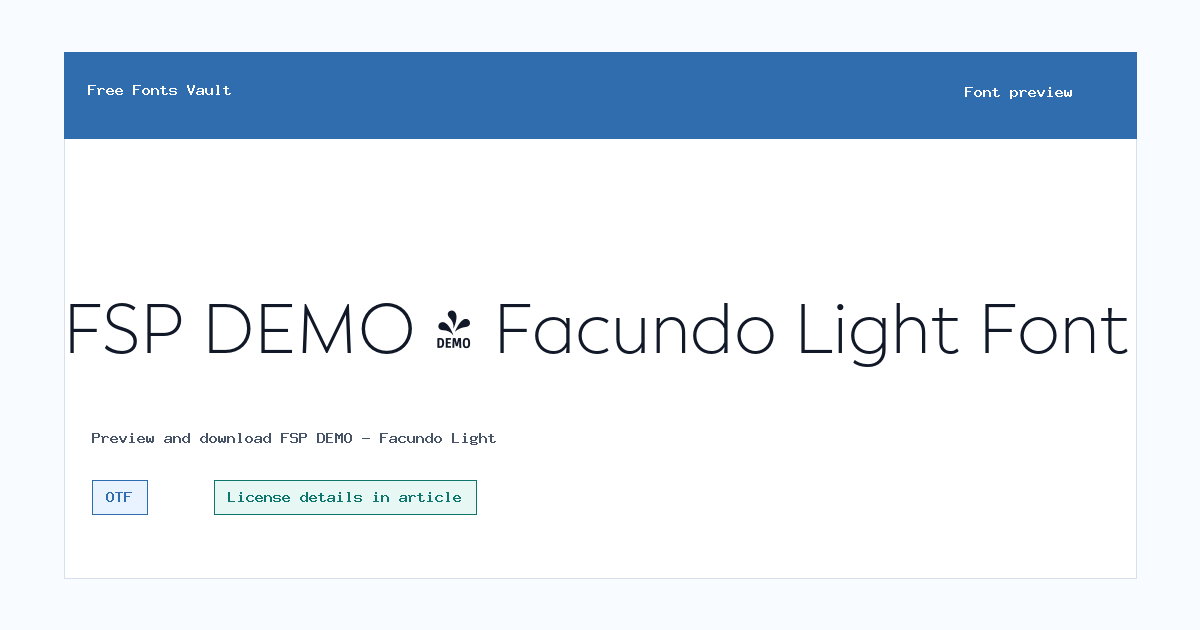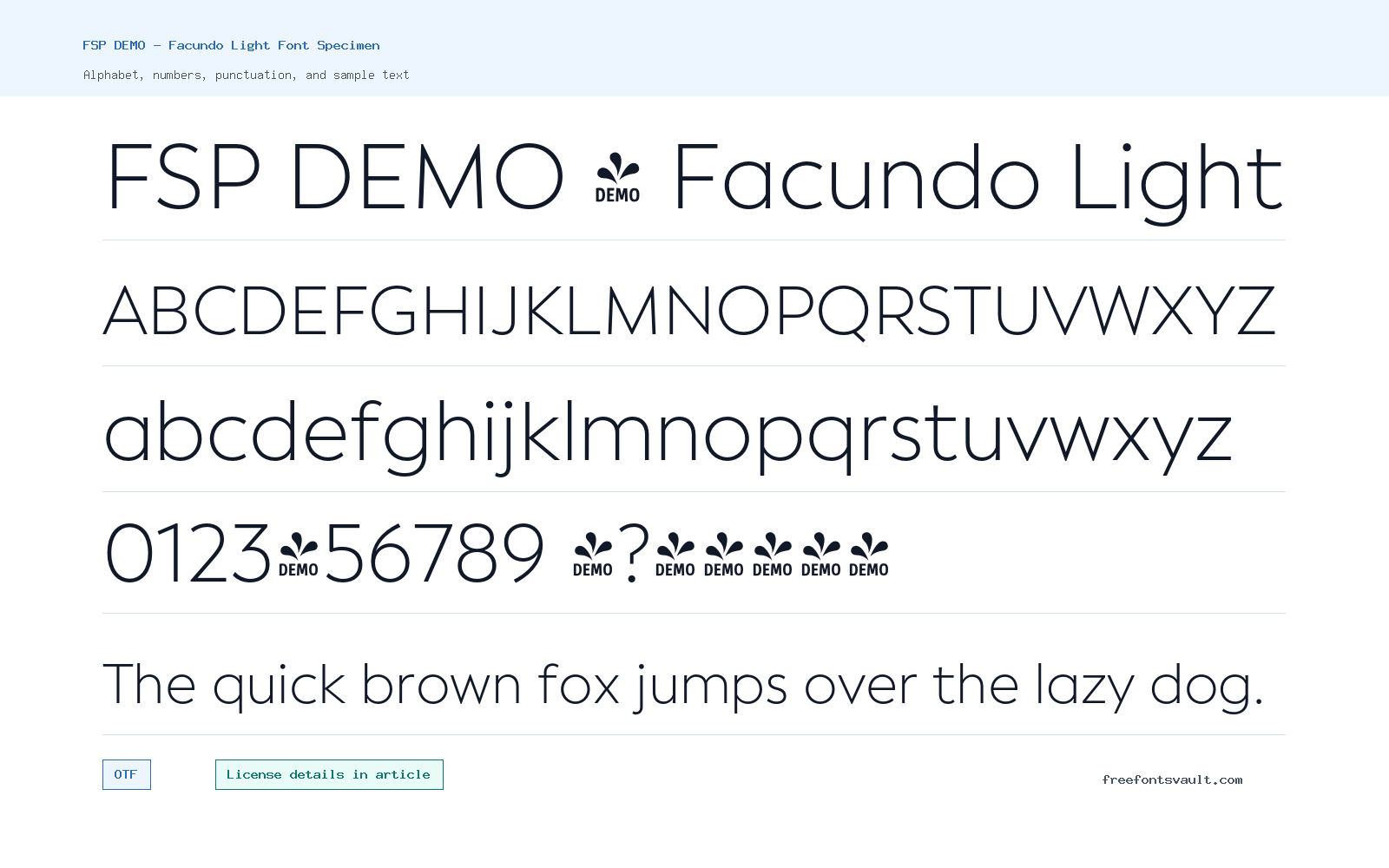
FSP DEMO - Facundo Light
- Designer Daniel Hernandez & Paula Nazal
- Foundry Daniel Hernandez & Paula Nazal
FSP DEMO – Facundo Light font.
Facundo Light is a clean 300-weight OTF style connected with Daniel Hernandez, Paula Nazal, and Latinotype. It is useful when you want a lighter voice for headings, names, labels, and refined preview graphics without moving into an ultra-thin look.
About Facundo Light Font
Light fonts need care. They can look elegant in a hero title or invitation, but they lose strength quickly when used too small or placed over a busy image. Preview your real text, then check contrast, spacing, and mobile readability. If the design needs stronger emphasis, compare it with a regular or medium companion style before committing.
- Light 300 weight with upright normal styling.
- Designer credits: Daniel Hernandez and Paula Nazal.
- Latinotype is connected through the designer or foundry link.
- Short headings, names, menu text, invitations, and elegant labels.
- Branding tests, editorial mockups, refined title graphics, and social posts.
- Layouts that need a lighter style with enough size and contrast.
Facundo Light is credited to Daniel Hernandez and Paula Nazal, with Latinotype connected through the saved designer or foundry link. Use those names for basic credit, and confirm the exact foundry wording if you are preparing a formal license or publication note.
Preview Facundo Light with the exact words you plan to use, then test it on the background color or image from your design. Increase the size or weight if the strokes feel too fragile. For paragraph text, use a regular reading face and keep Facundo Light for the heading or accent line.
Who designed Facundo Light?
The saved credits name Daniel Hernandez and Paula Nazal, with Latinotype connected through the designer or foundry link.
Where does Facundo Light work best?
It works best in short, refined display settings such as headings, invitations, labels, menu text, and branding tests.